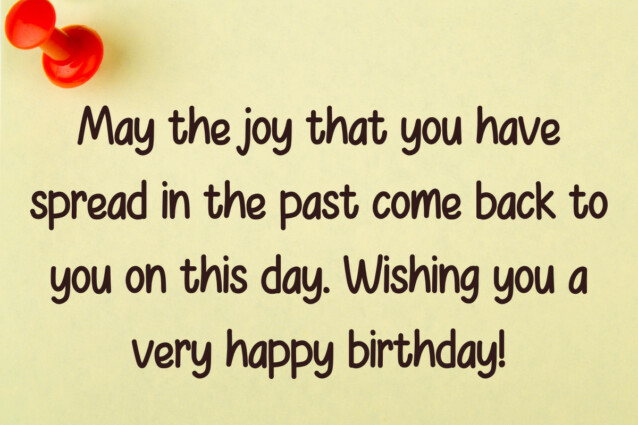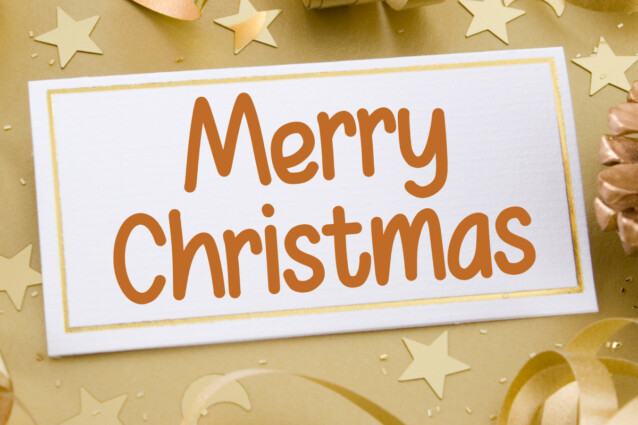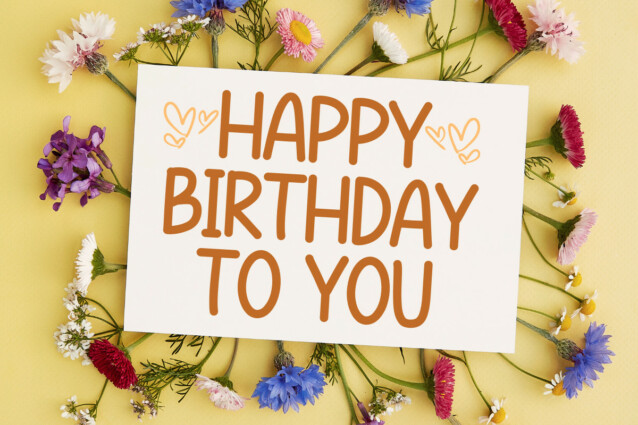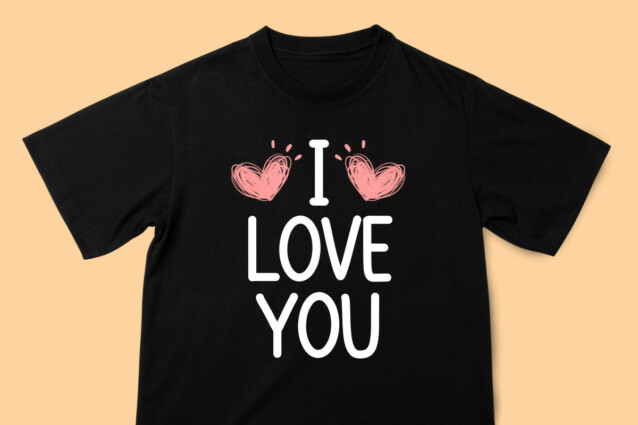
Notes Quote Font
Notes Quote Font is a sweet and friendly display font. Its natural and unique style makes it perfect for large design collections. The only limit is your imagination!